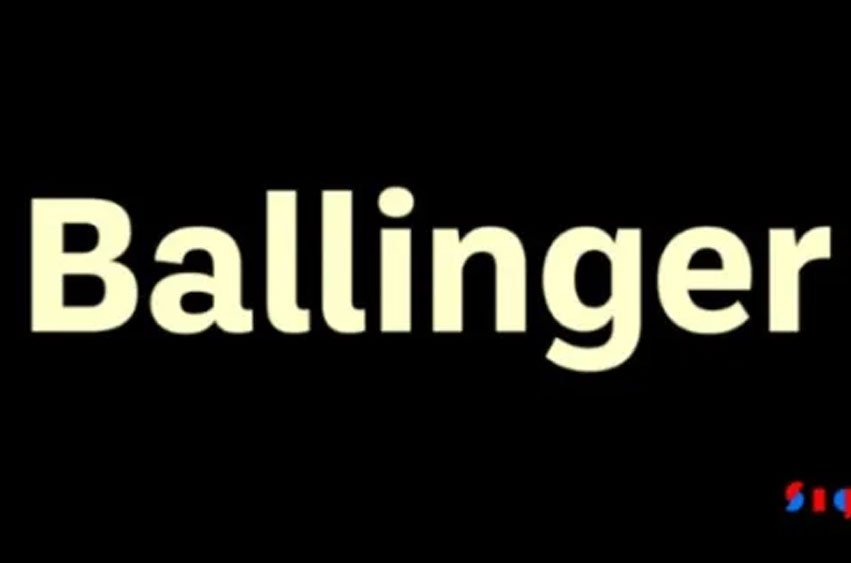
Ballinger Font is a general and universal typeface but not so plain and monotonous and not so much unique that is does not look familiar. It is named after Raymond A. Ballinger, one the great American designers of mid twentieth century, who wrote the ‘Lettering Art in Modern Use’ and was a proponent of elegance and readability. Ballinger features big countertops and a very high x-height. The baseline of a, e, and s extend and expand from the Thin to the Black weights to retain openness even in the densest styles.
Figures that are semi-oldstyle are also available, including case sensitive punctuation and delimiters. Italics add soft ogee curves to the page or screen to warm the space and give the appearance of energy.